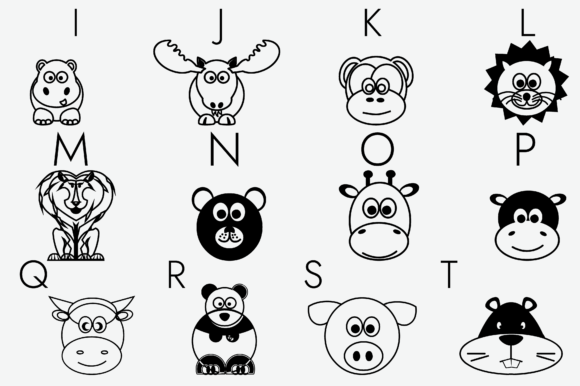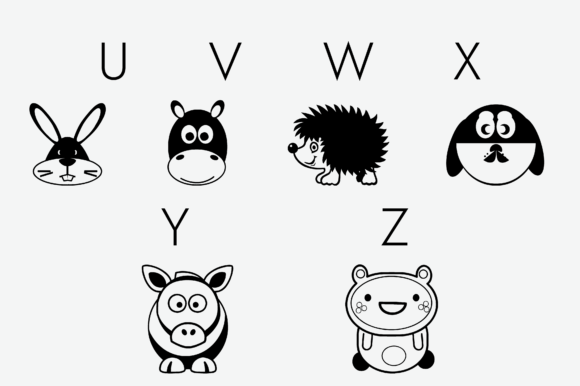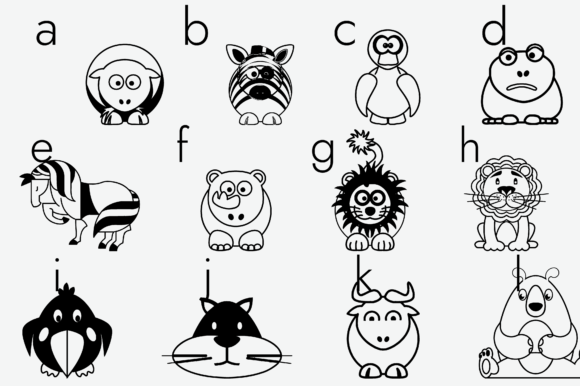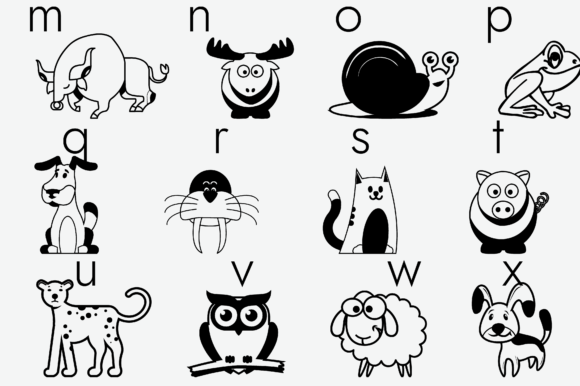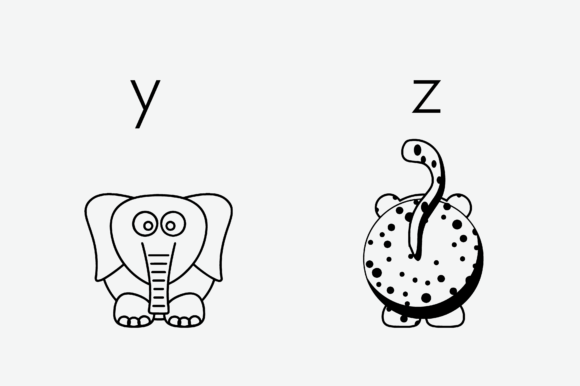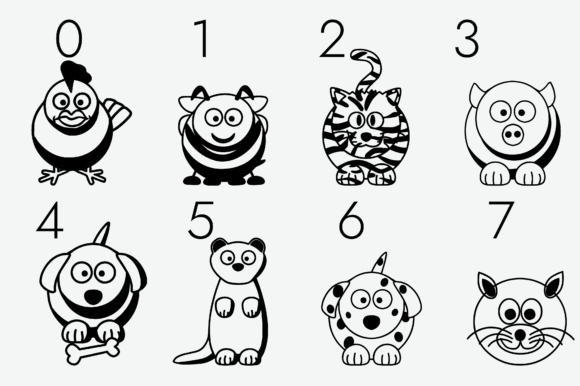
Cute Animals Cartoons Font – Free Download
Introduction to Cute Animals Cartoons Font
Cute Animals Cartoons is an adorable and playful dingbats font perfect for children’s products and activities.
Add it to your creative projects, and notice how they capture everyone’s heart and attention .
Key Features of Cute Animals Cartoons Font
Why Choose Cute Animals Cartoons Font?
Cute Animals Cartoons Font offers exceptional quality and versatility, making it a valuable addition to your design toolkit. Whether you’re creating for personal projects or commercial use, Cute Animals Cartoons Font delivers professional results.